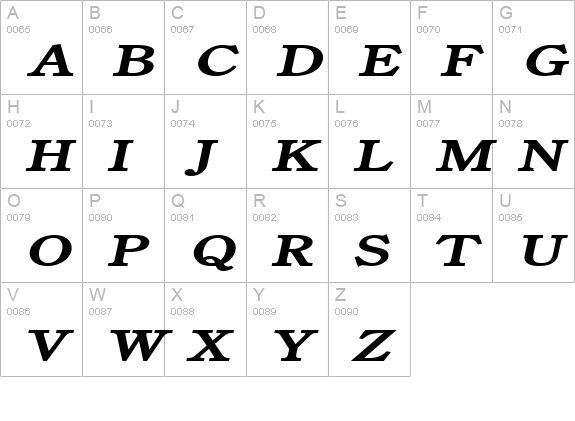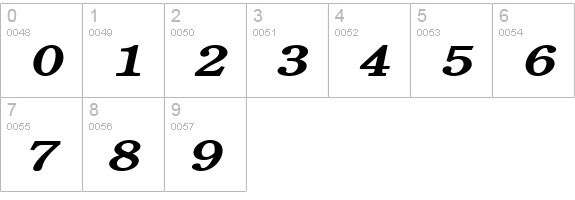
Cento Extended BoldItalic Font Details
Cento Extended BoldItalic is a distinctive, extended-width variant in the Cento typeface family \xE2\x80\x94 well suited to design and typography projects.
Cento Extended BoldItalic is a striking and contemporary font that exudes sophistication and elegance. Its bold and italic design gives it a unique and eye-catching appeal, making it perfect for adding a touch of drama to any design project. The extended letterforms provide a modern and sleek look, while maintaining readability and legibility. This versatile font is ideal for a wide range of applications, from branding and packaging to headlines and editorial design. Whether you're looking to make a statement or add a touch of flair to your project, Cento Extended BoldItalic is sure to impress. Best of all, Cento Extended BoldItalic is available for free download at FontsMarket.com. So why wait? Add this stunning font to your collection today and take your designs to the next level.